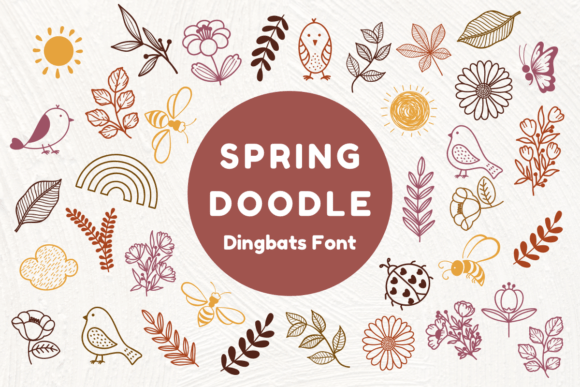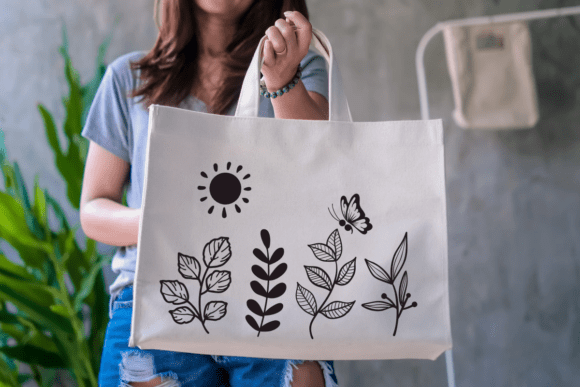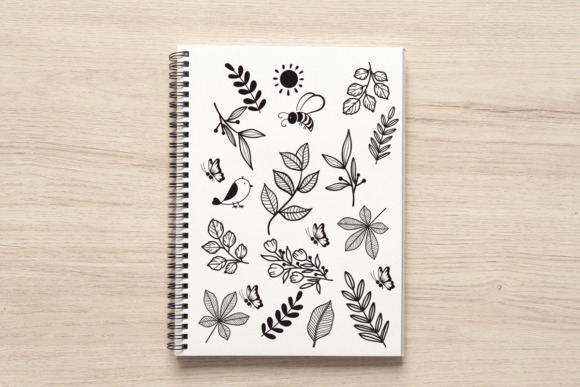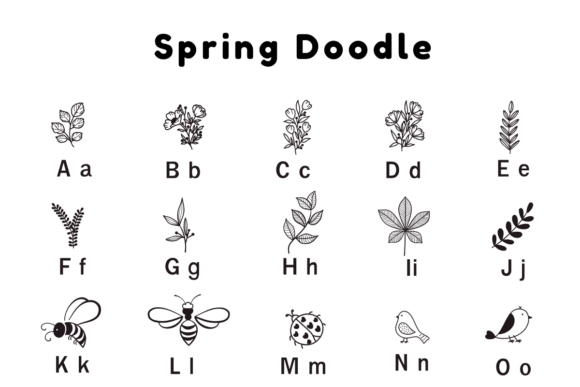
Spring Doodle Font
Spring Doodle is a dingbats font with a warm theme. This font can enhance your creative projects such as wedding invitations, DIY, crafts, decorations, logos, and many other creative ideas.